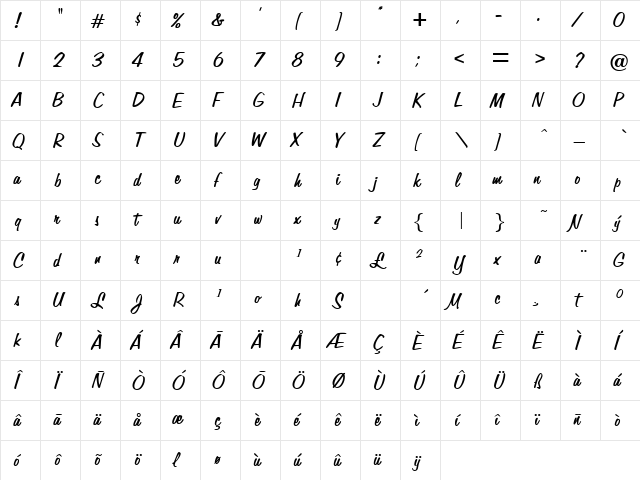
Alperton DB Regular
Design Context for Alperton DB Typeface
Alperton DB is a composed and adaptable typeface that performs quietly and consistently across a wide range of design contexts.